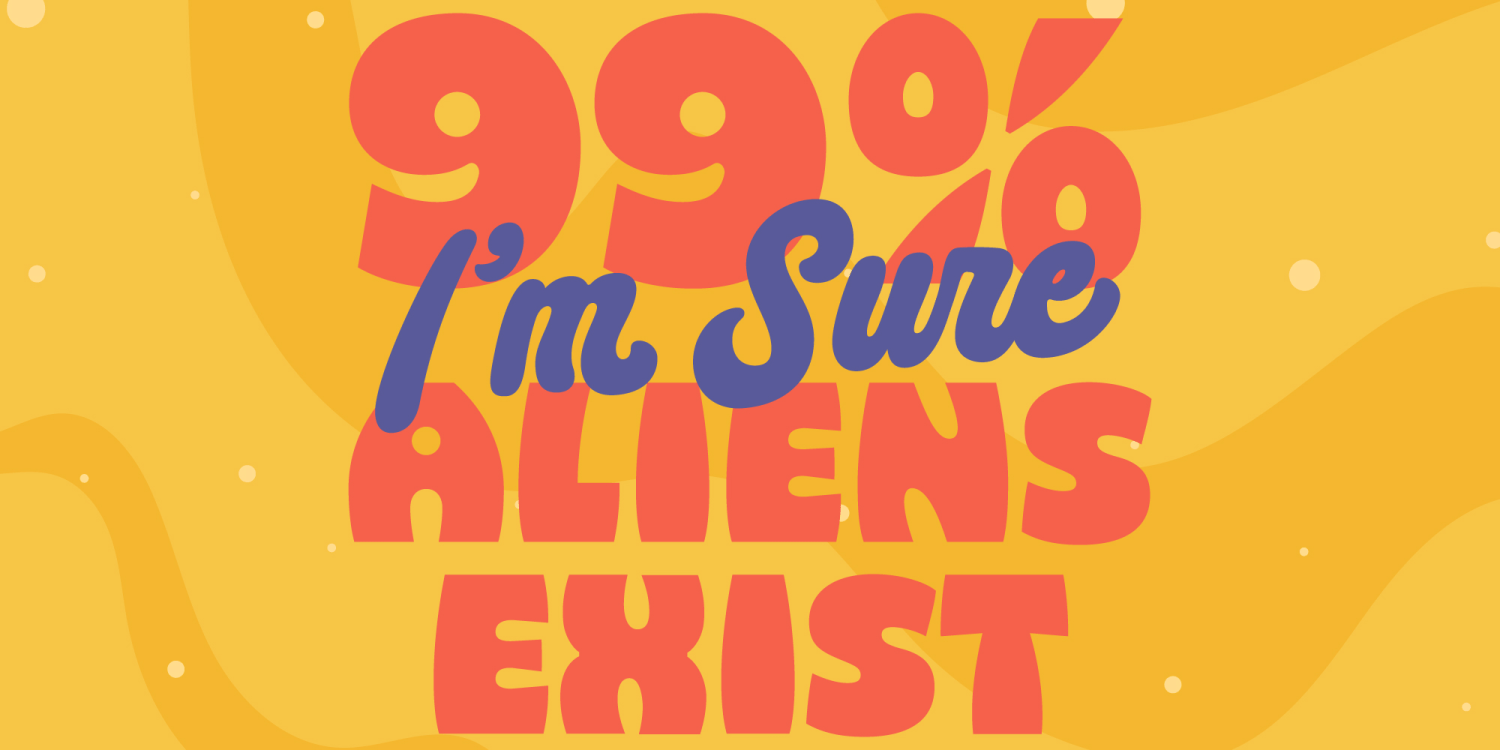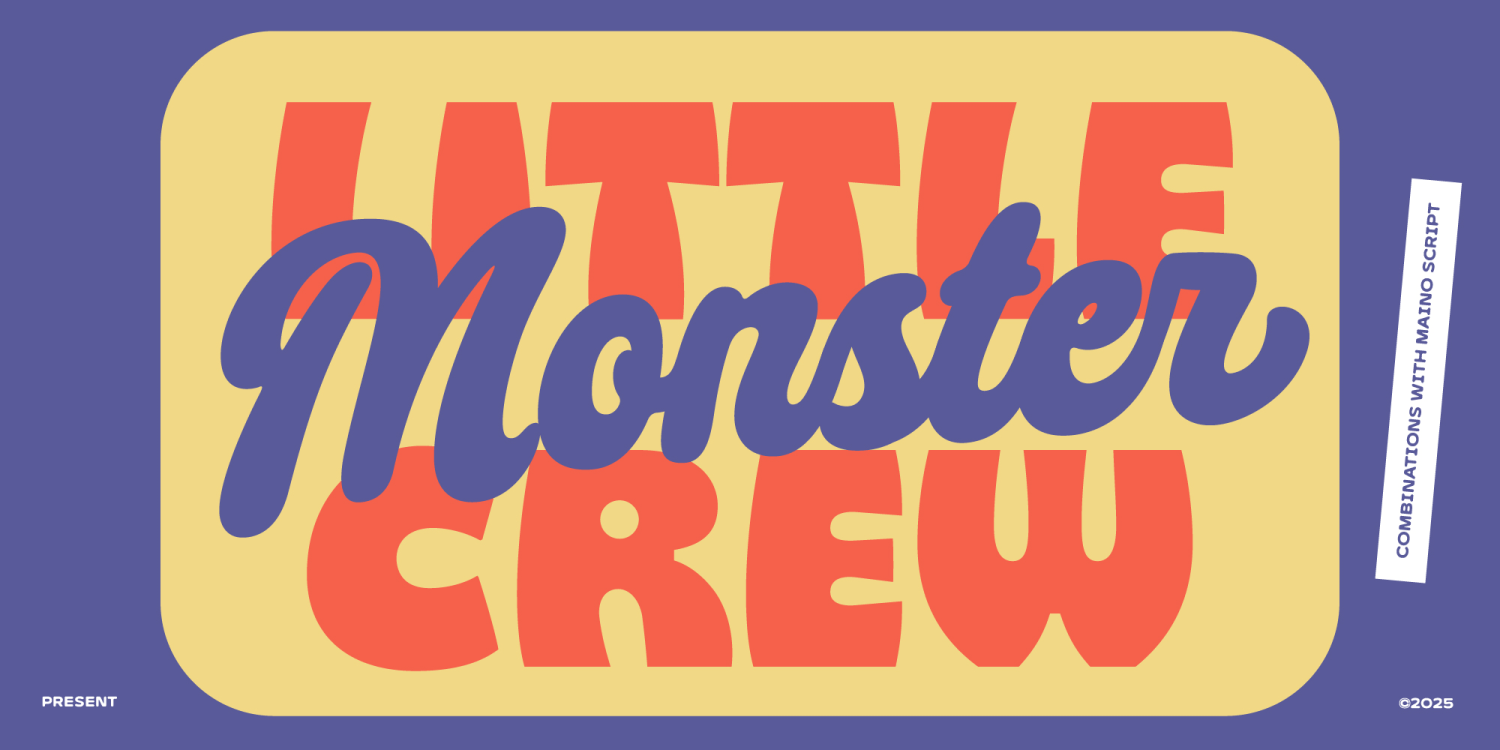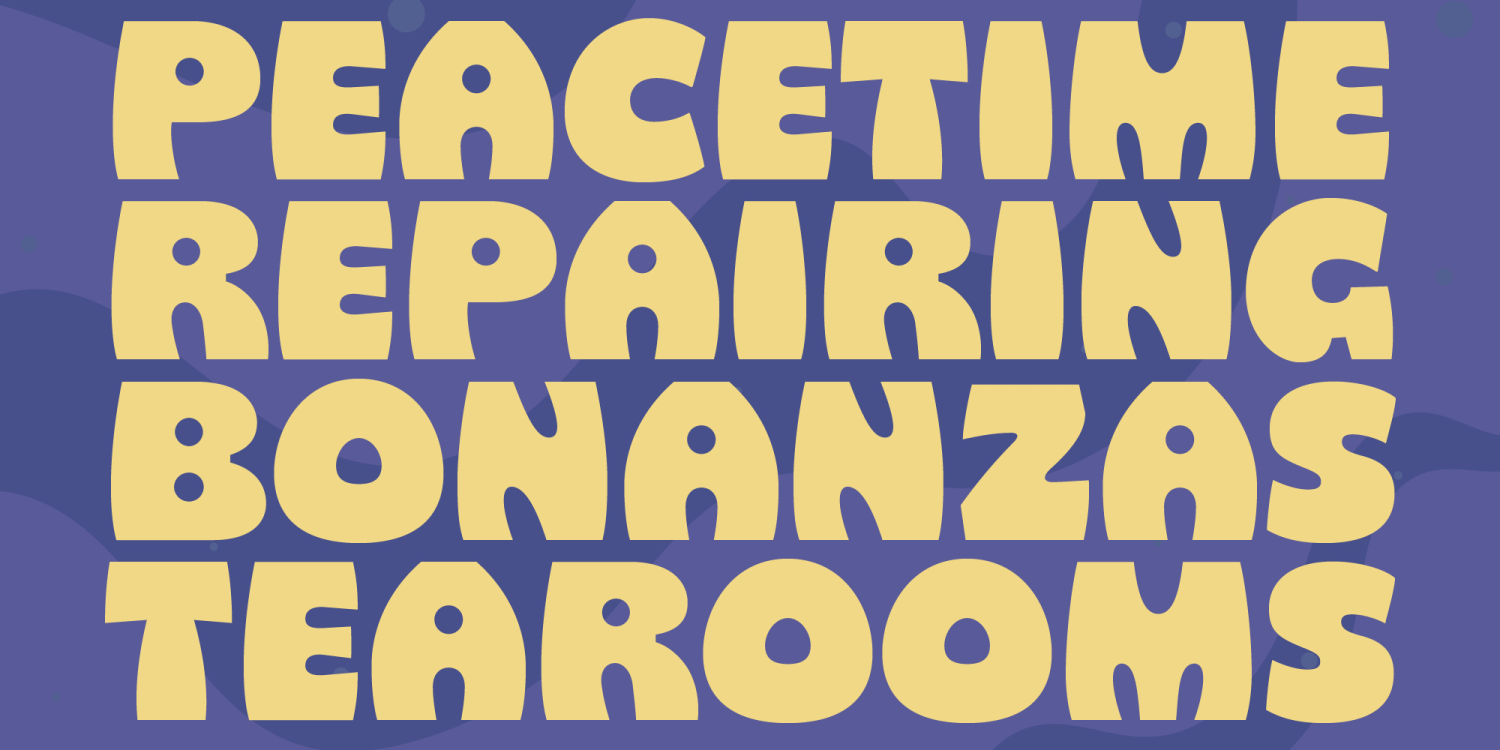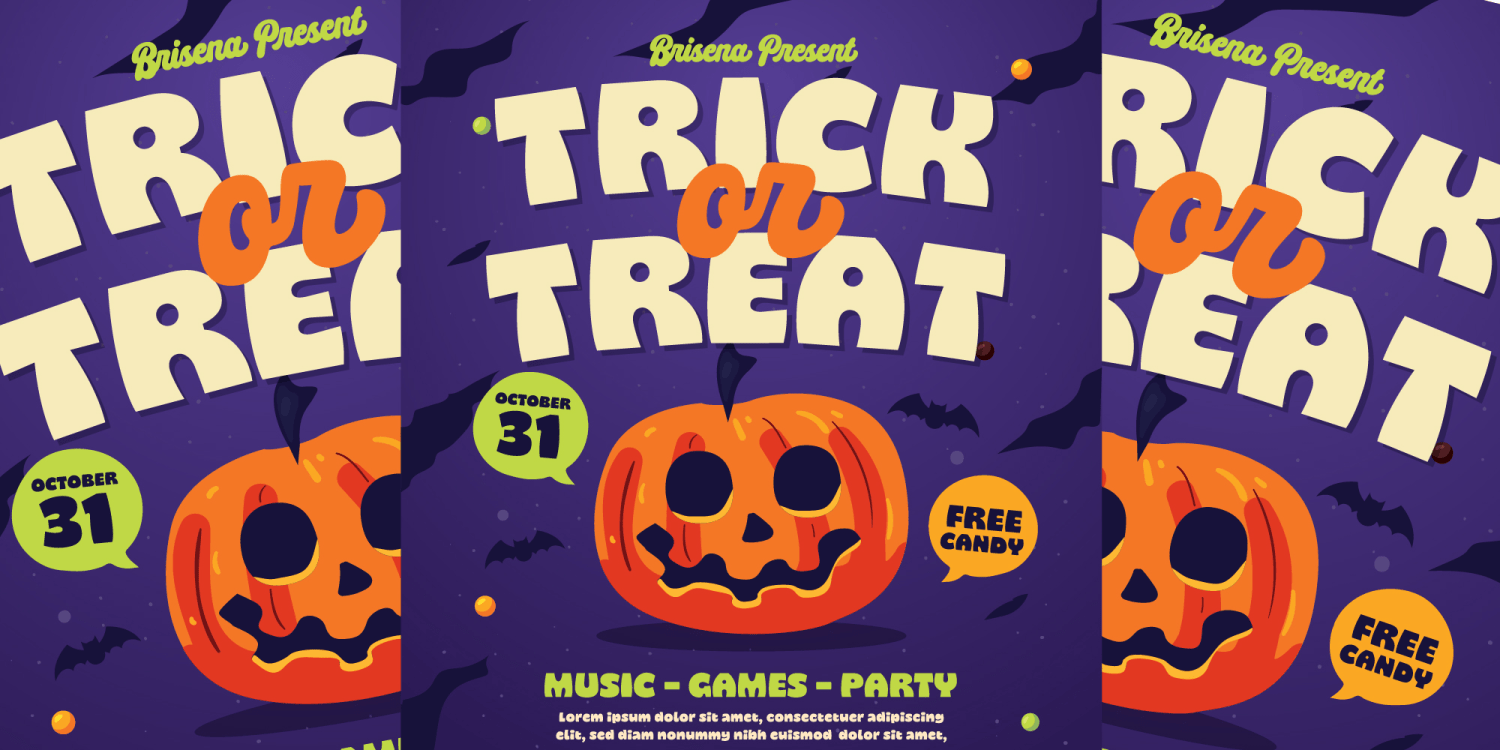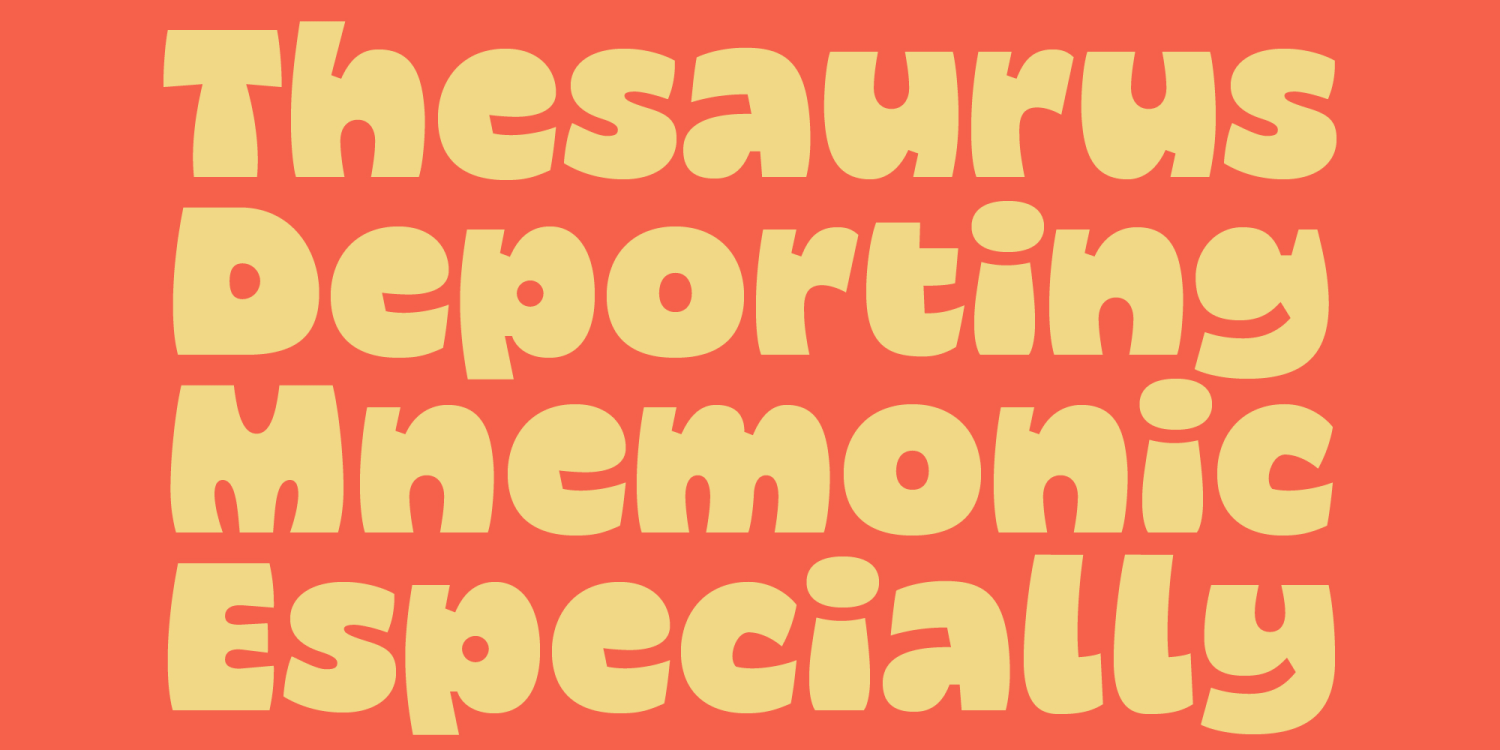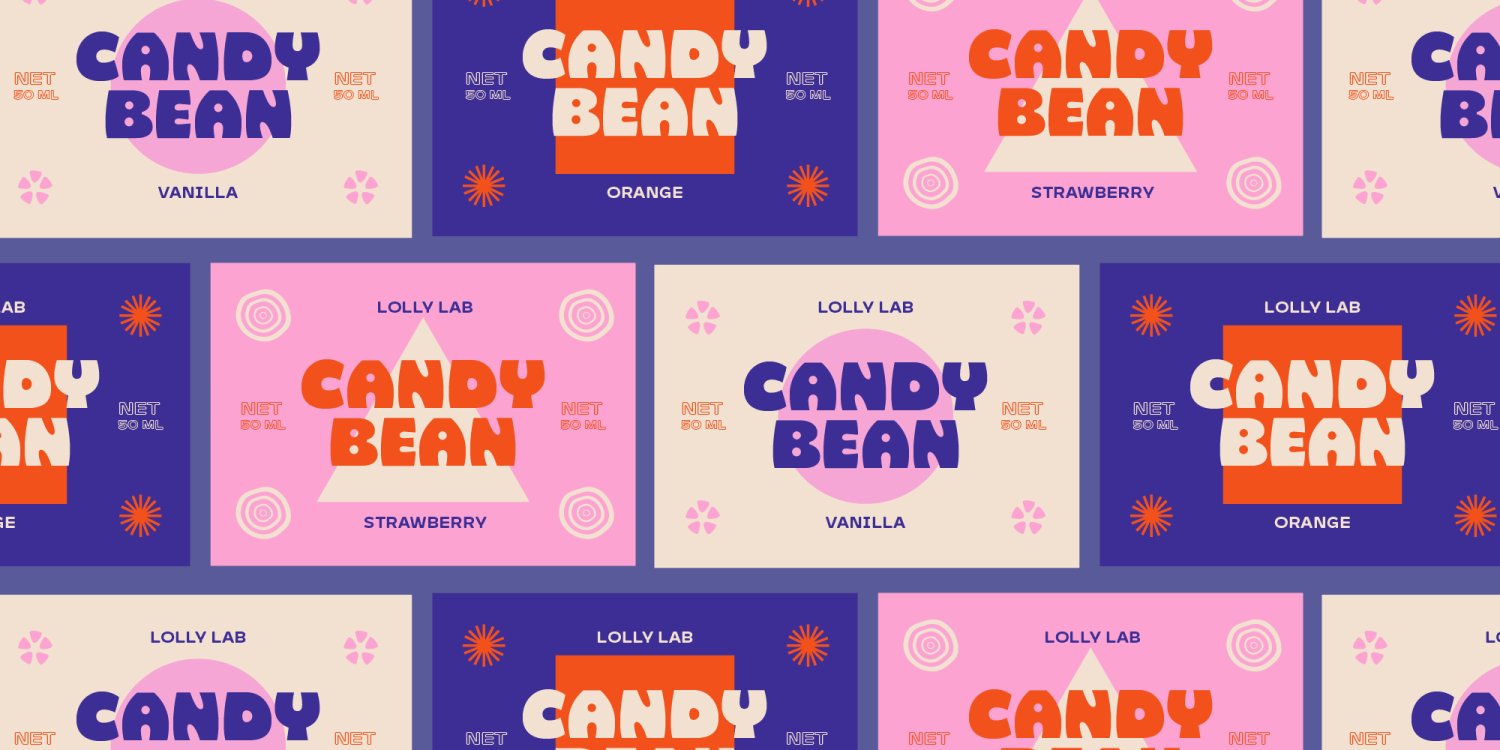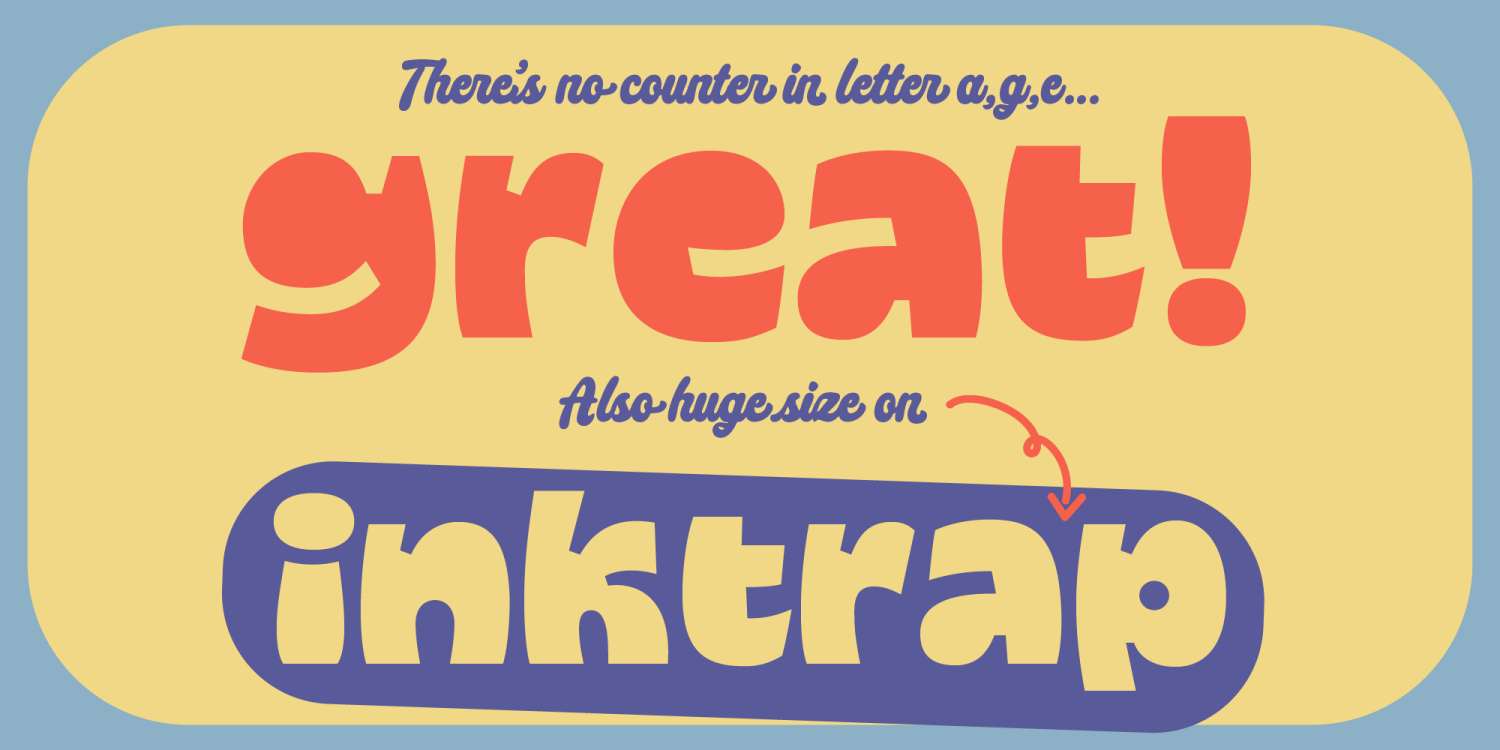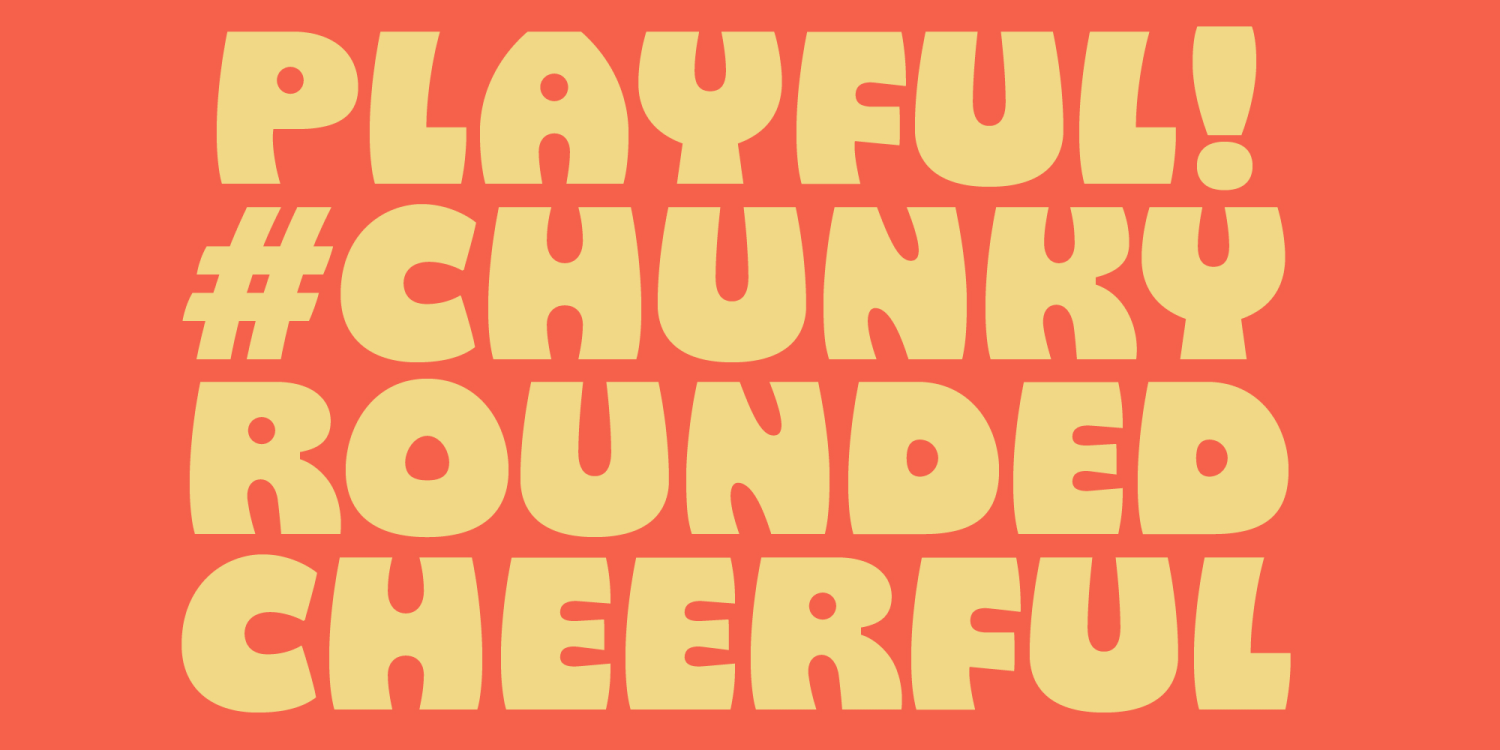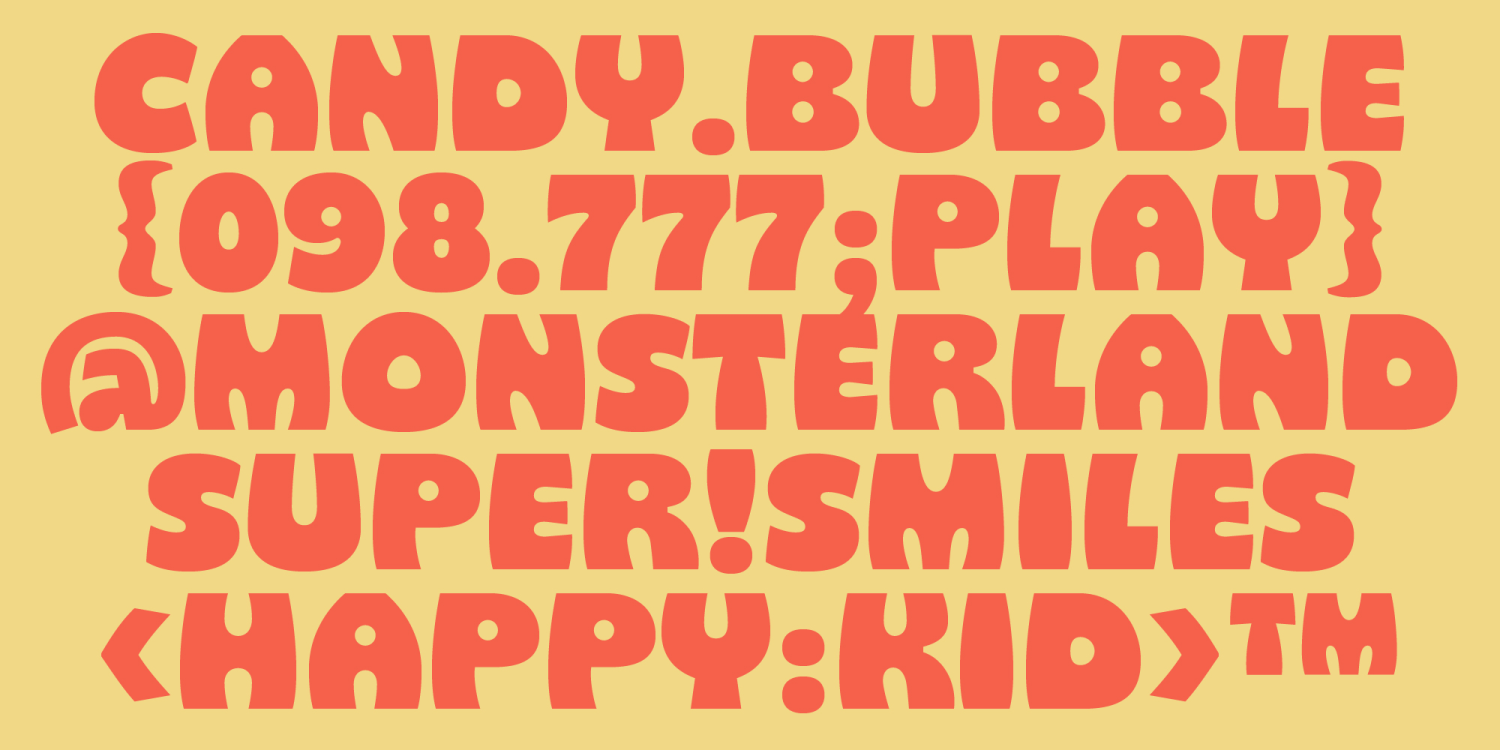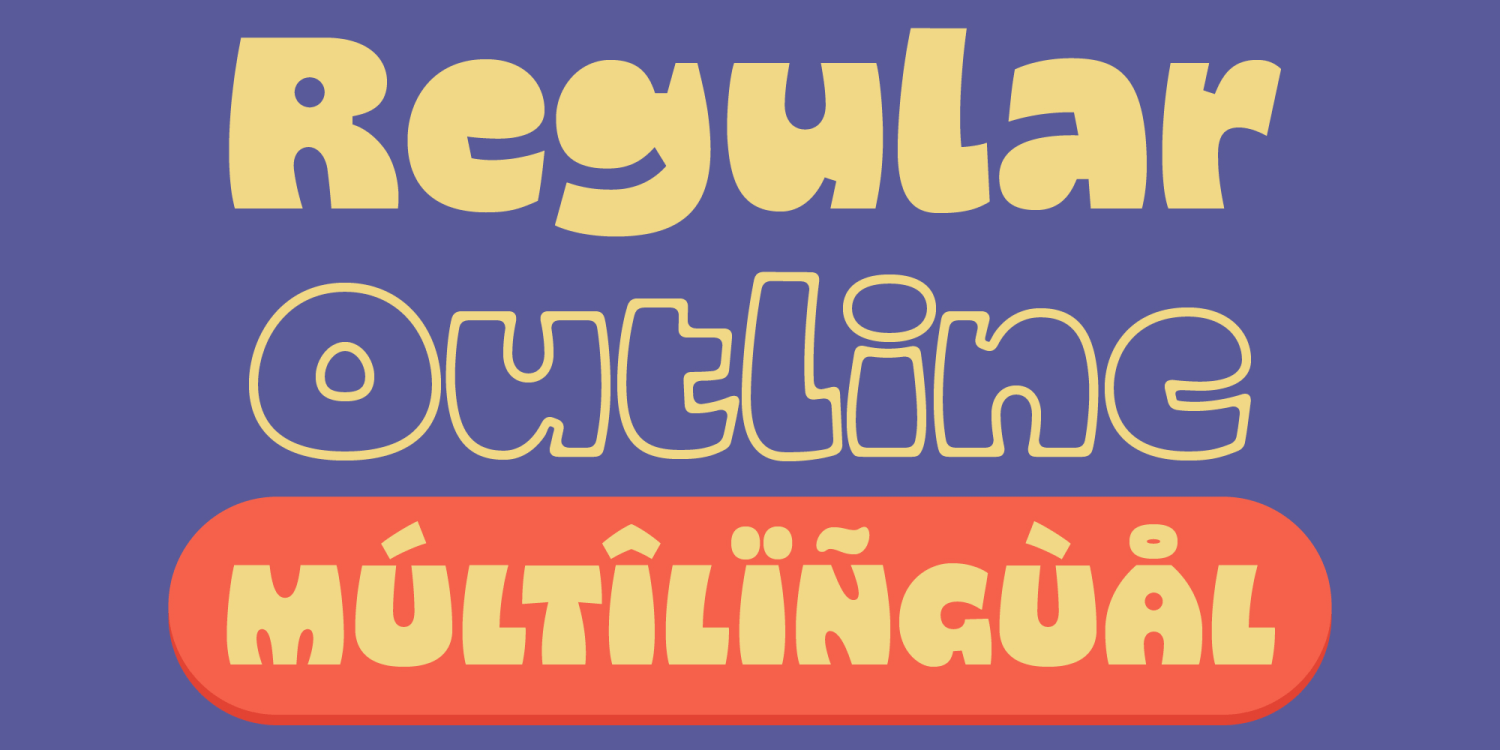
Gosh Thing
Say hello to Gosh Thing a chunky, happy font that’s all about fun vibes and big smiles! It’s bold, round, and full of character — perfect for kids’ stuff, playful branding, event posters, or anything that needs a burst of joy.
Gosh Thing doesn’t take itself too seriously. It’s got that friendly, bouncy look that feels a little retro and totally fresh at the same time. The shapes are soft, the curves are chunky, and every letter feels like it’s having a good time.
You’ll get two styles: Regular and Outline, so you can mix them up for extra punch. Use it for candy packaging, space-themed parties, toy logos, or just when you want your words to feel happy.